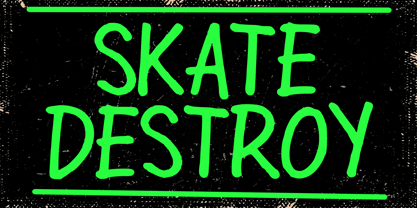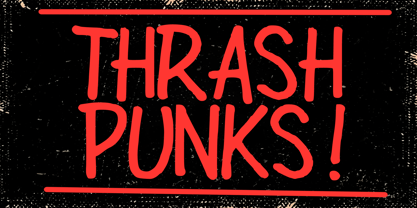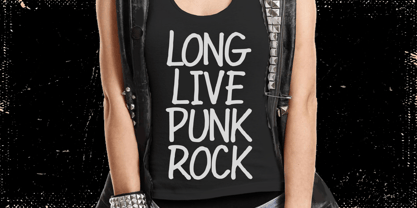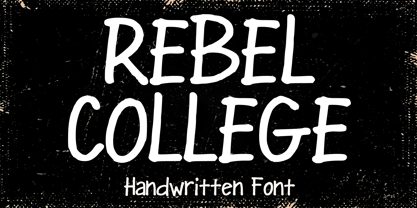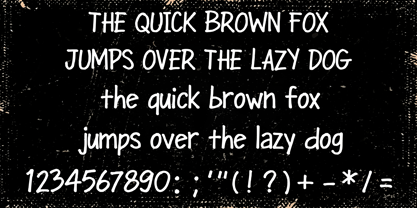
Rebel College Script
by Mvmet
The Rebel College Script Font Family was designed by Gabriel Valentinus and published by Mvmet. Rebel College Script contains 1 styles. More about this family
Rebel College Script is a striking display font infused with punk influence and the raw energy of skateboarding and graffiti culture. This typeface embodies a cool defiance, making it an ideal choice for impactful movie posters, dynamic music covers, rebellious t-shirt designs, eye-catching stickers, and stunning clothing visuals. With its unique blend of edgy and delightful aesthetics, Rebel College Script adds an unforgettable charm and a spirit of audacious anarchy to your designs. Perfect for branding, editorial projects, and merchandise, this font family captures the essence of creativity and individuality.
Designers: Gabriel Valentinus
Foundry: Mvmet